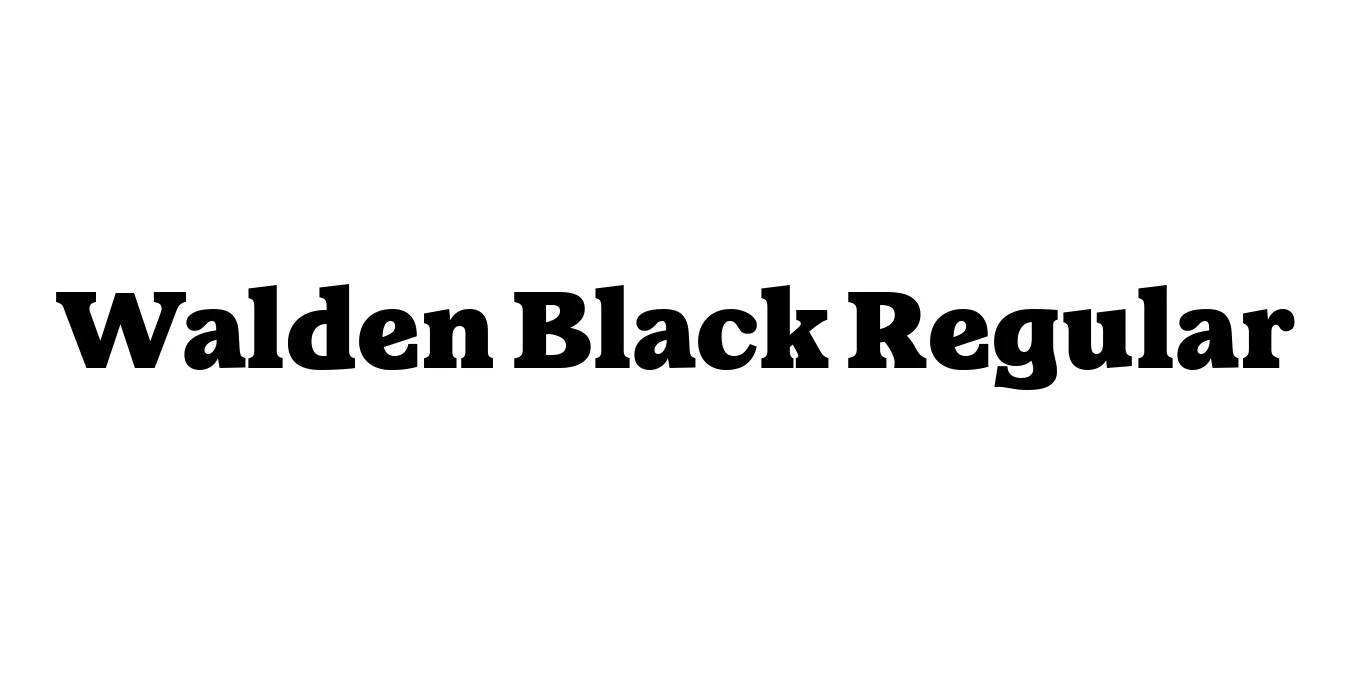
Walden Black Regular
Designed by Uddi Uddi
Walden Black Regular is a bold, high-impact display typeface characterized by its strong, blocky letterforms and vintage aesthetic. Drawing inspiration from classic athletic lettering and mid-century advertising, this font delivers a powerful visual punch. Its thick strokes and minimal negative space make it an ideal choice for headlines that need to grab immediate attention while maintaining a sense of structural integrity.
Developed as a versatile tool for graphic designers, the font excels in digital and print mediums where legibility meets artistic expression. Whether used in branding, apparel design, or editorial layouts, Walden Black Regular provides a timeless feel that bridges the gap between traditional masonry-style fonts and modern typography. Its rugged yet refined appearance makes it a favorite for projects requiring a heavy typographic presence.
Walden Black Regular Best Uses
Perfect for creating impactful and memorable brand identities.
Ideal for t-shirt graphics and sports-related clothing merchandise.
Excellent for high-visibility titles in posters and magazines.
Captures attention in thumbnails and promotional banners.